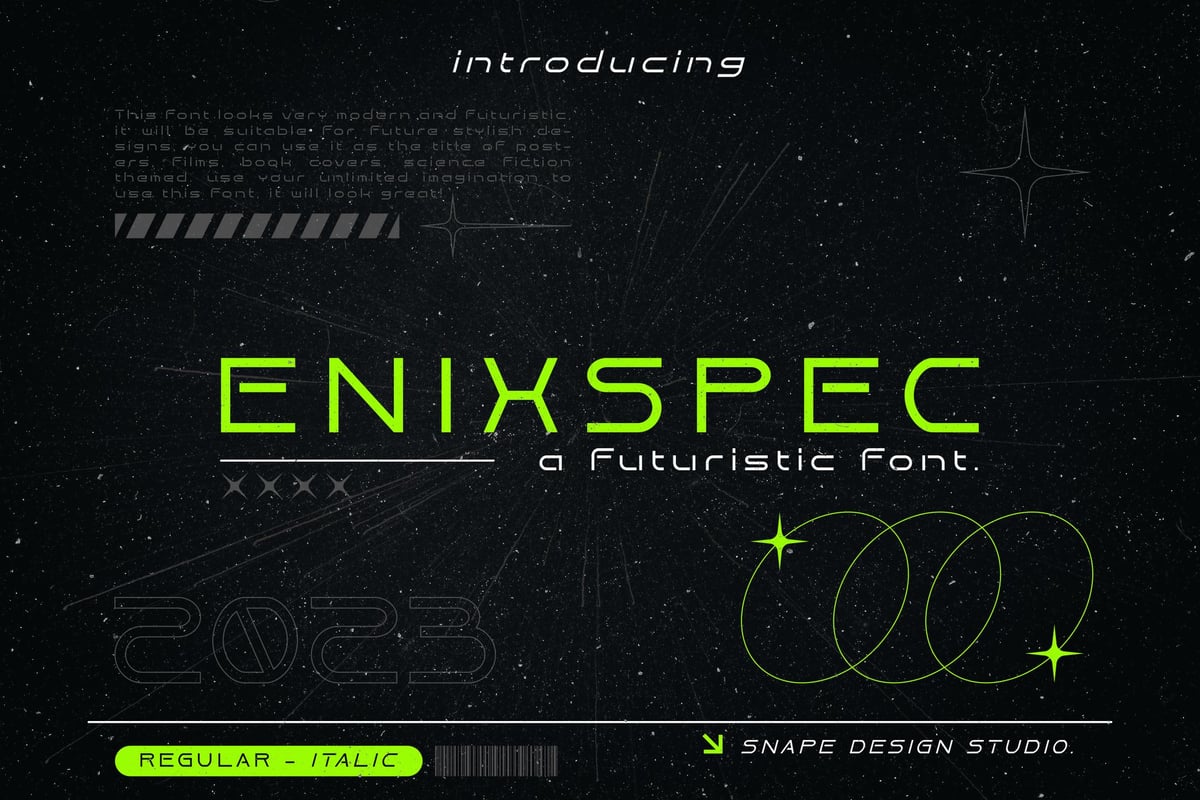
Enixspec - Futuristic Font
Transform your designs with sleek, cutting-edge typography that seamlessly blends technology and artistry. This innovative futuristic font collection redefines modern design possibilities, delivering dynamic and visually striking characters perfect for sci-fi themes, tech branding, or any project demanding a contemporary edge. The versatile typeface empowers creativity with user-friendly customization options that elevate your work to the next level. FEATURES: Uppercase Lowercase Number Punctuat...